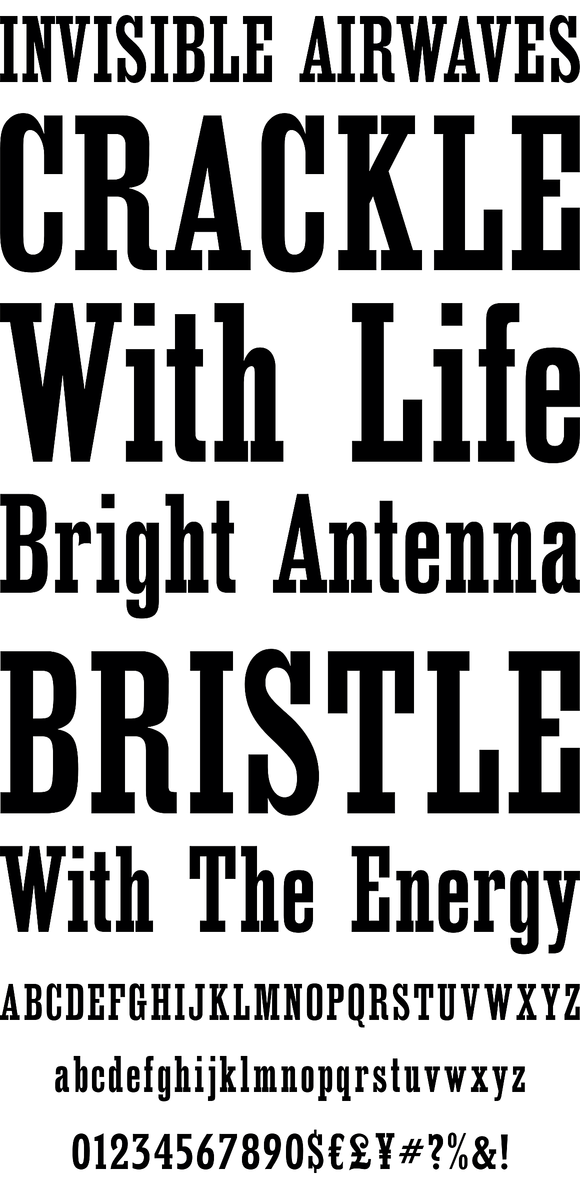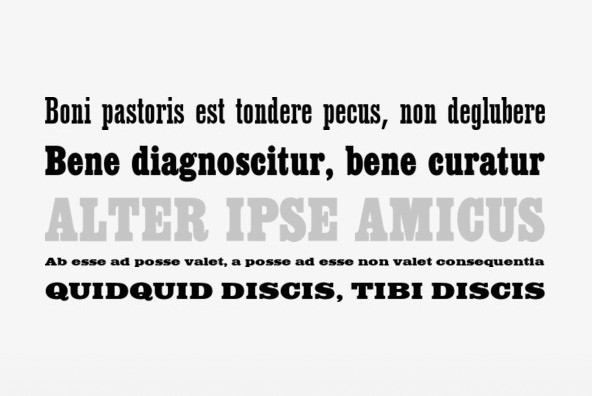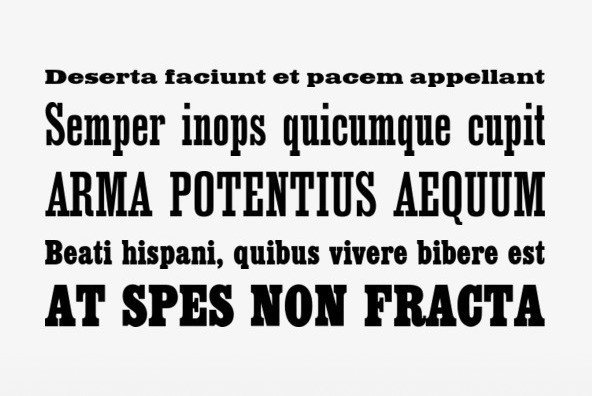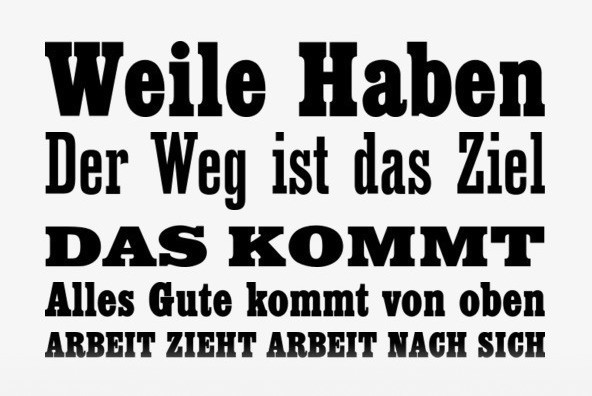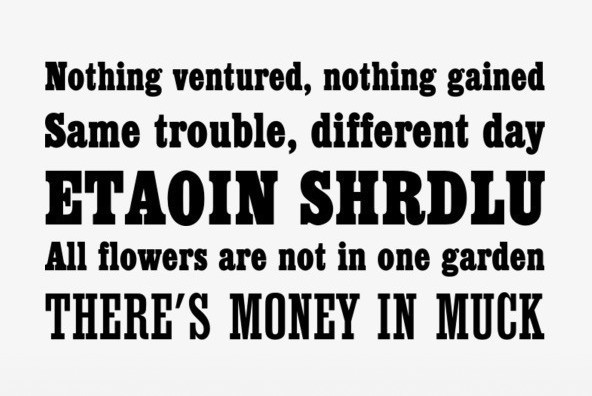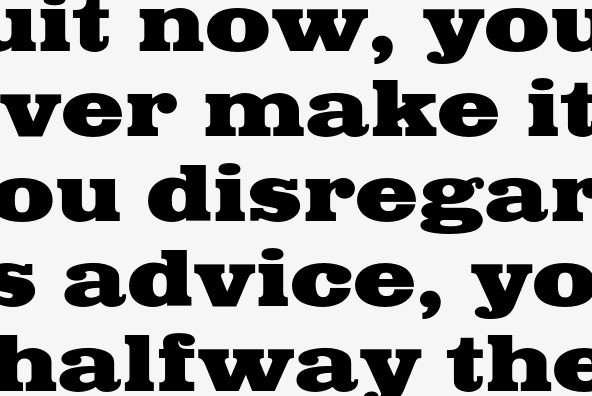
Egyptienne
Egyptienne is a clean and elegant slab typeface, originally designed by URW Studio in 1955. Egyptienne contains West, East, Turkish, Baltic, Romanian language support.